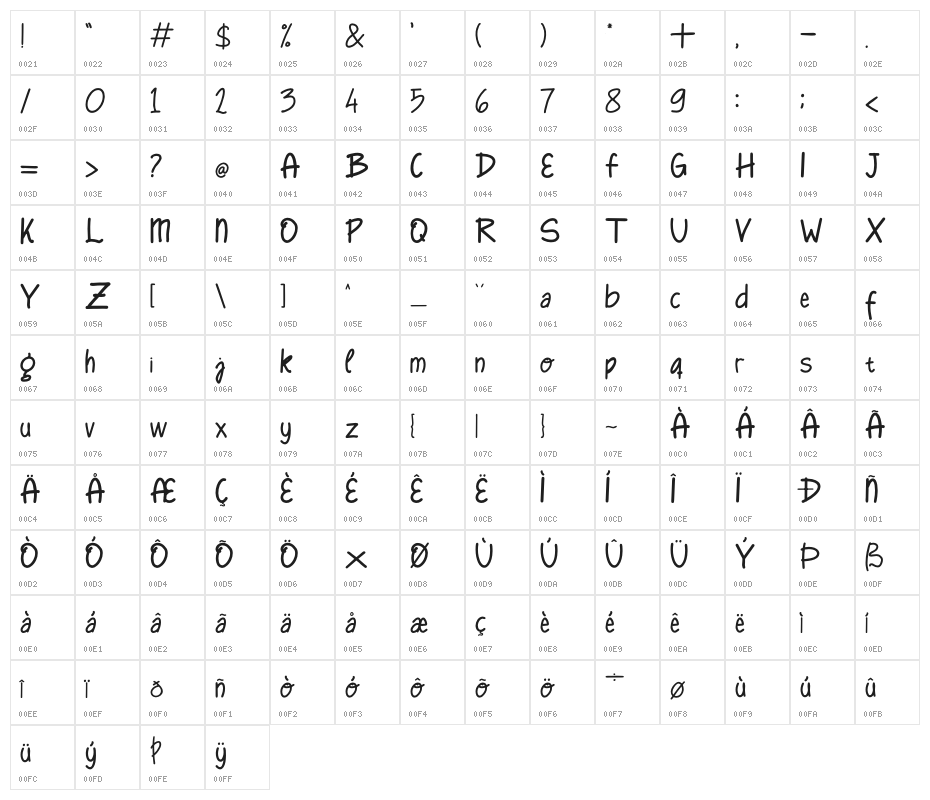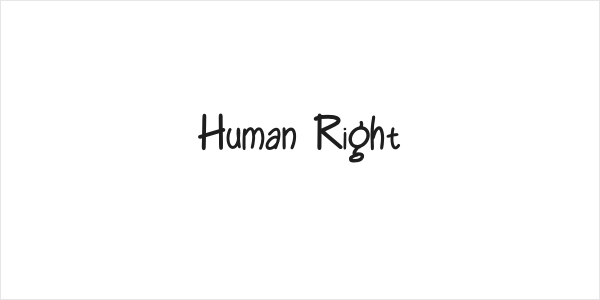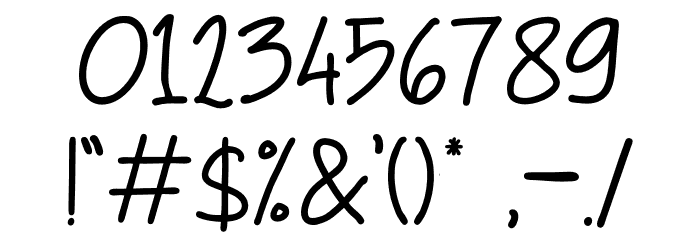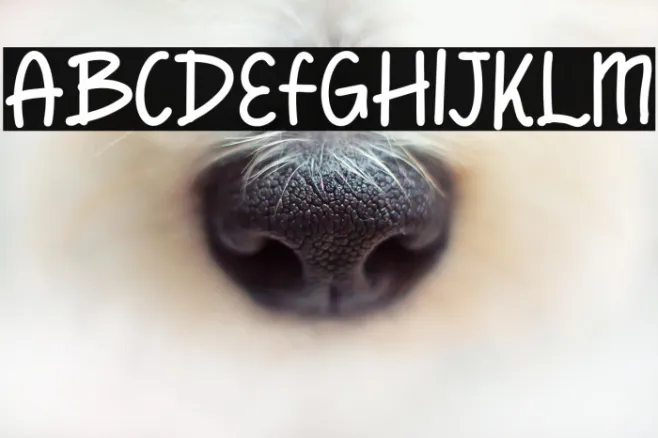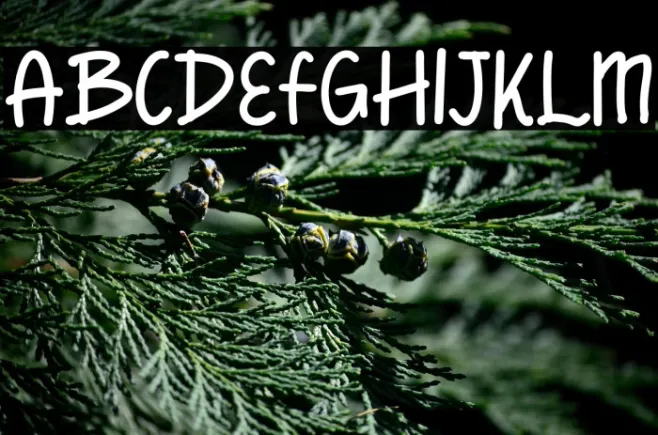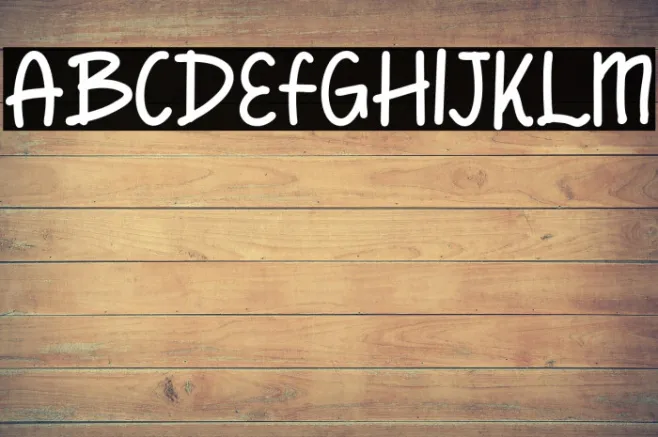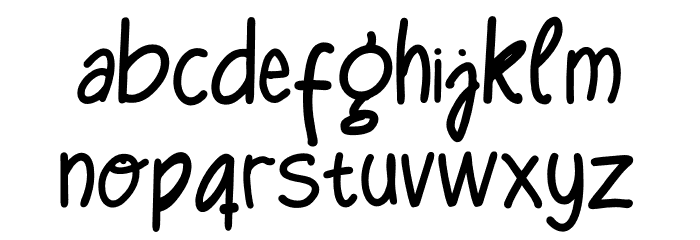
Human Right Font
Human Right Description
This font features a playful and informal handwritten style, characterized by its rounded and slightly irregular letterforms. The strokes are consistent in width, giving it a uniform appearance while maintaining a casual and approachable feel. The uppercase letters are bold and prominent, while the lowercase letters are more relaxed, with some letters having unique quirks, such as the looped 'g' and the distinctive 'q'. Numerals are clear and legible, matching the overall style of the alphabet. The special characters are well-integrated, maintaining the font's cohesive look. This font exudes a friendly and personal touch, making it ideal for projects that require a human element.
| Use Case | Headlines, Informal text, Personal projects |
| Proposed Projects | Ideal for greeting cards, children's books, personal blogs, and informal branding. |